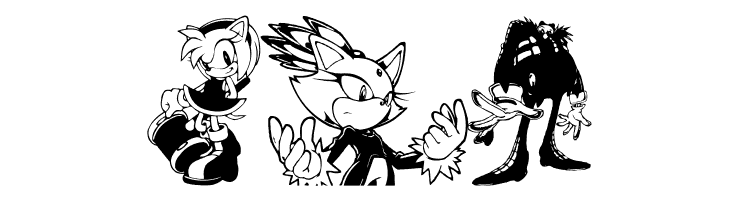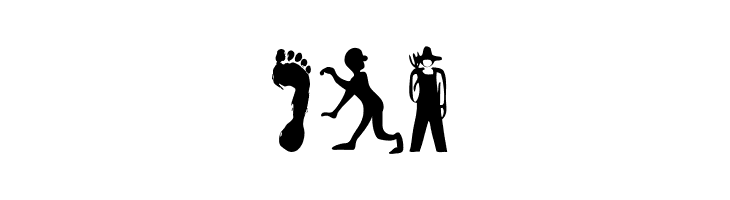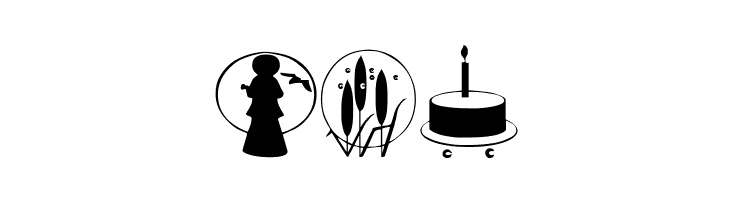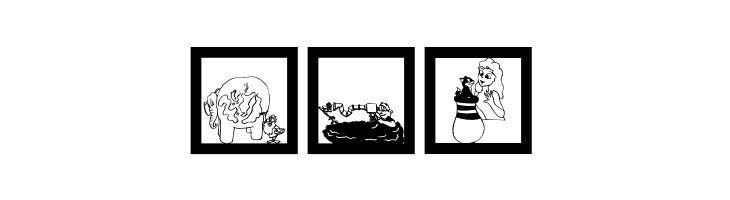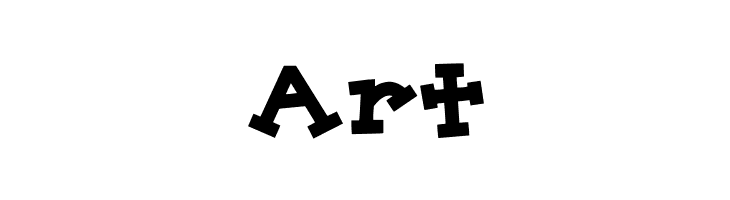
• SociaLAnimaL
• Socially Awkward
A casual, handwritten font with a playful and authentic style.
• SomeArtistsOne
Cartoonish, artist-themed pictorial font with each character as a unique illustration.
• SomeArtistsSquares
Cartoonish, hand-drawn squares featuring humorous artist scenes.
• SomeImprosBats
A decorative icon-based font with varied pictograms.
• SomeTypesSilhous
Silhouette pictogram font with human figures and activity icons.
• Sonic Mega Font
• Sonrits Regular
A classic serif font with elegant and well-defined characters.
• Sorority
A bold, playful font with quirky, irregular characters.
• Souci Sans NF
A modern, playful font with rounded characters and consistent stroke width.